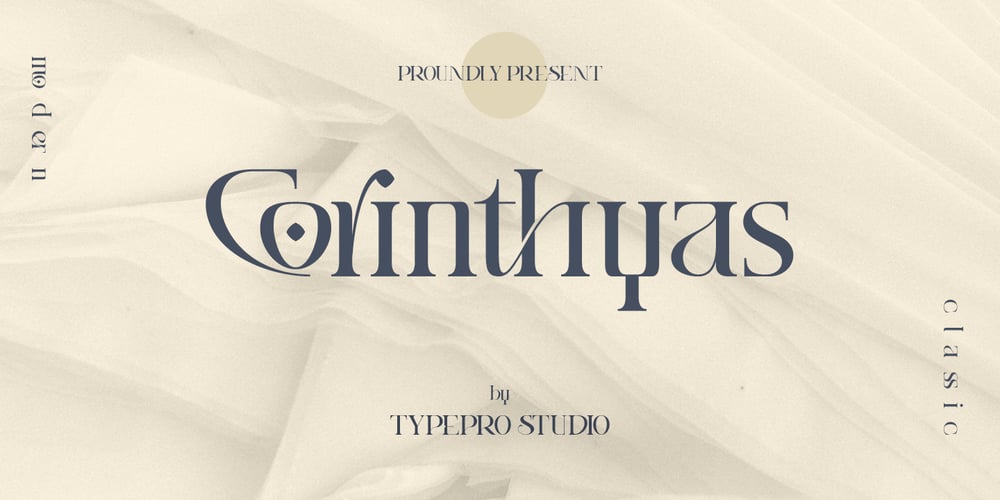
Corinthyas Font Family was designed by Faizi Munir, Agus Suryanto and published by Typepro Studio. Corinthyas contains 1 styles and family package options. Corinthyas Font designed by Agus Suryanto is a modern with classic calligraphy font with our signature. The Journal is perfect for your branding, logos, invitations, long texts, and more.Features of The Journal: PUA encoded, Alternative, Ligature, Support Multilingual, To be able to access alternative fonts, make sure the software you are using can support OpenType features such as Microsoft Word, Paint, Adobe, Corel draw, Affinity, Cricut, and other applications.If you need any help please contact me ๐